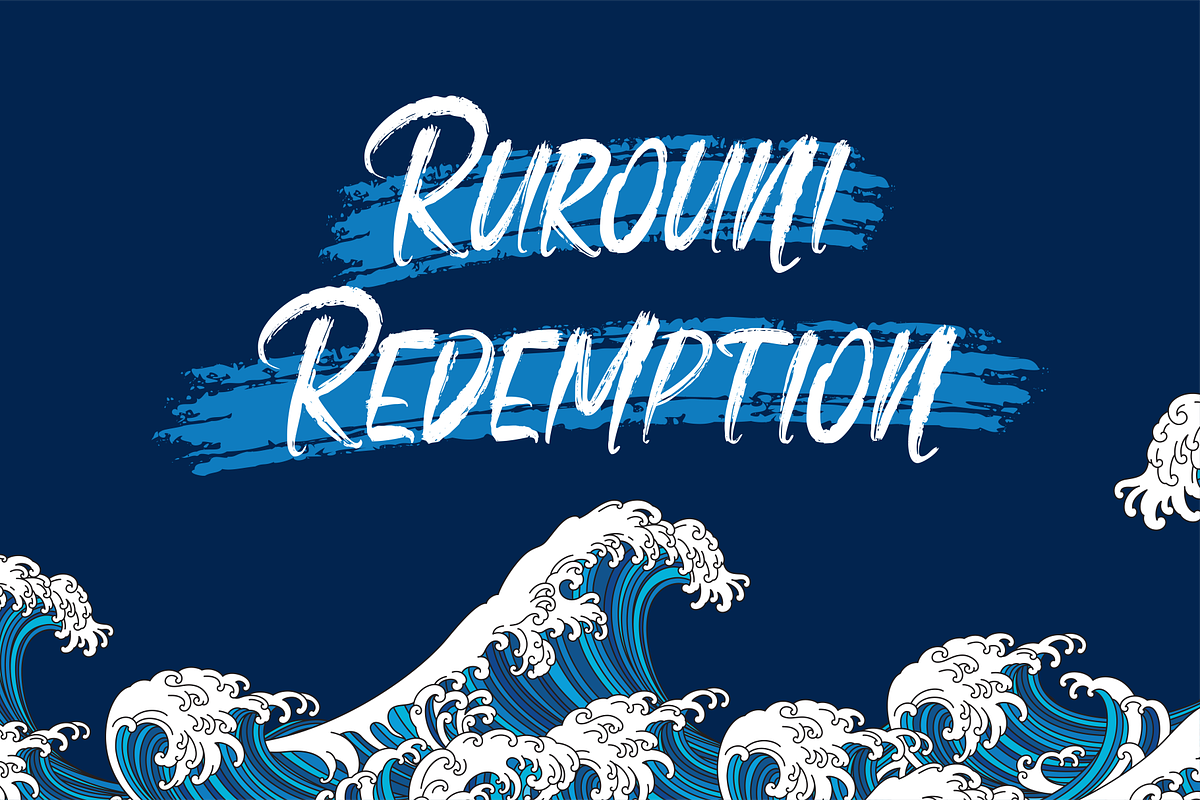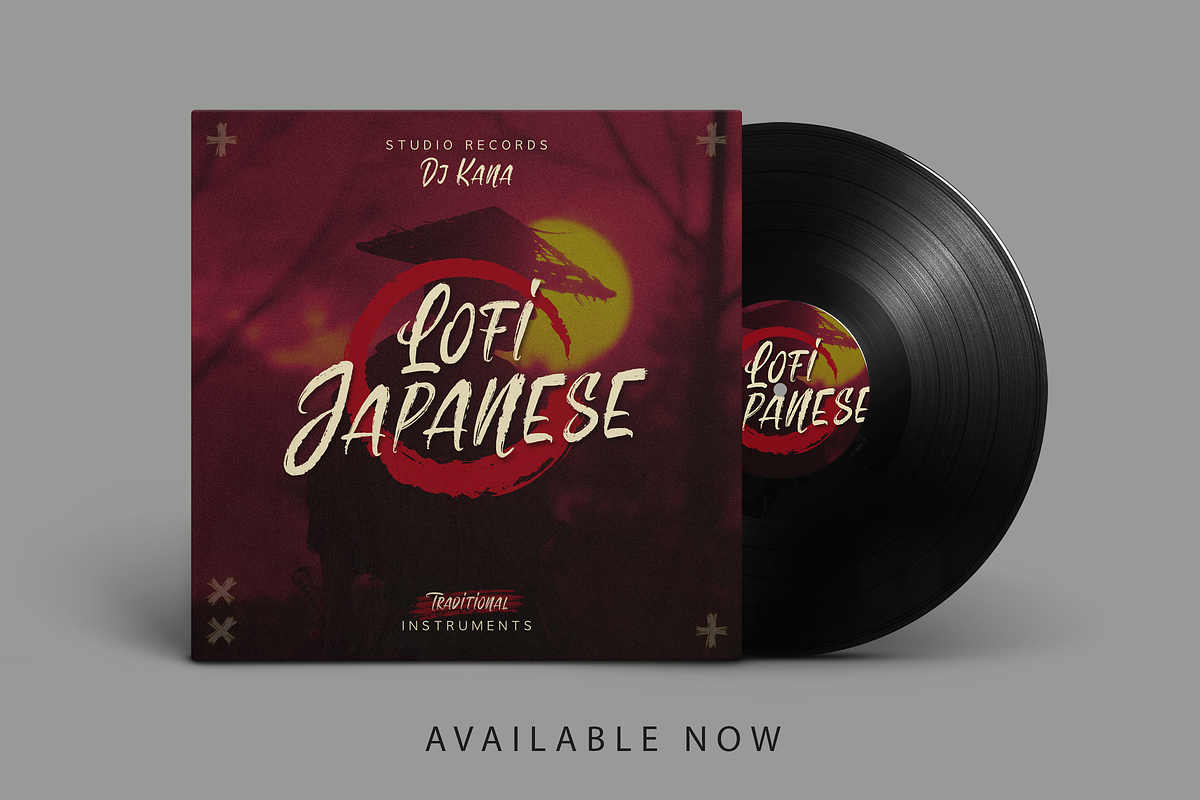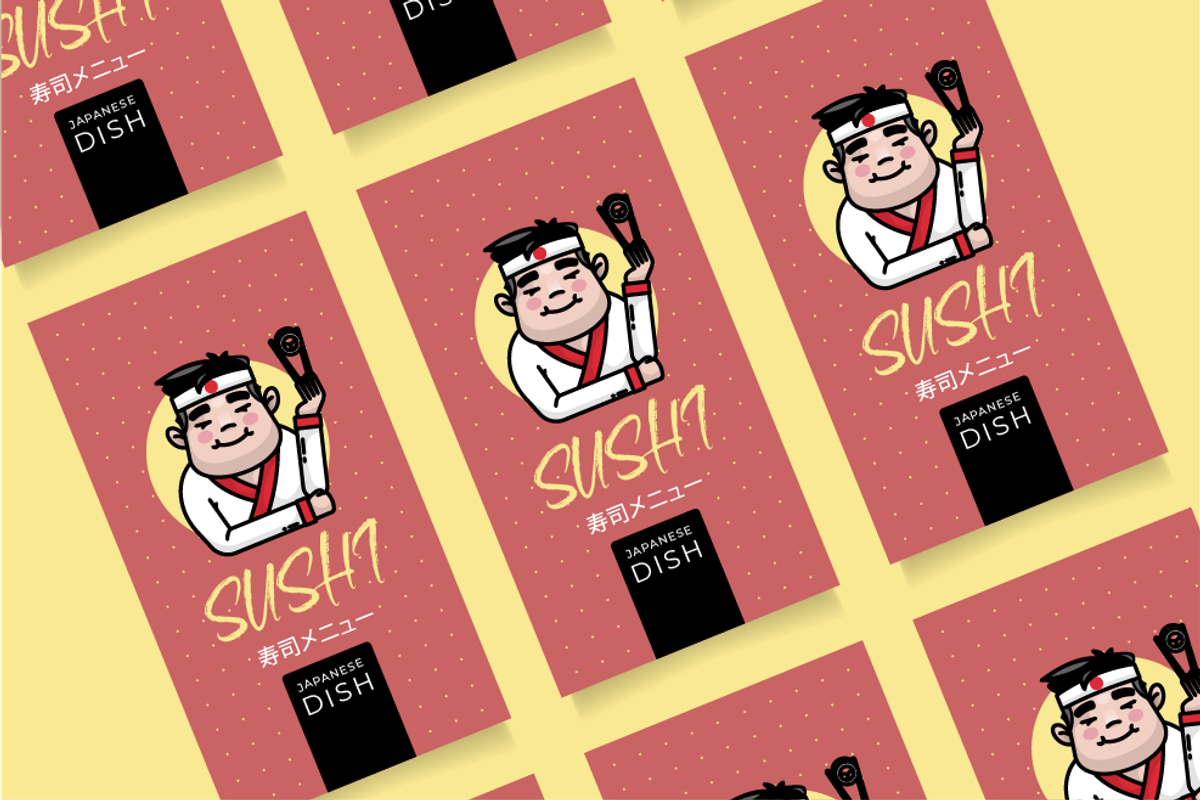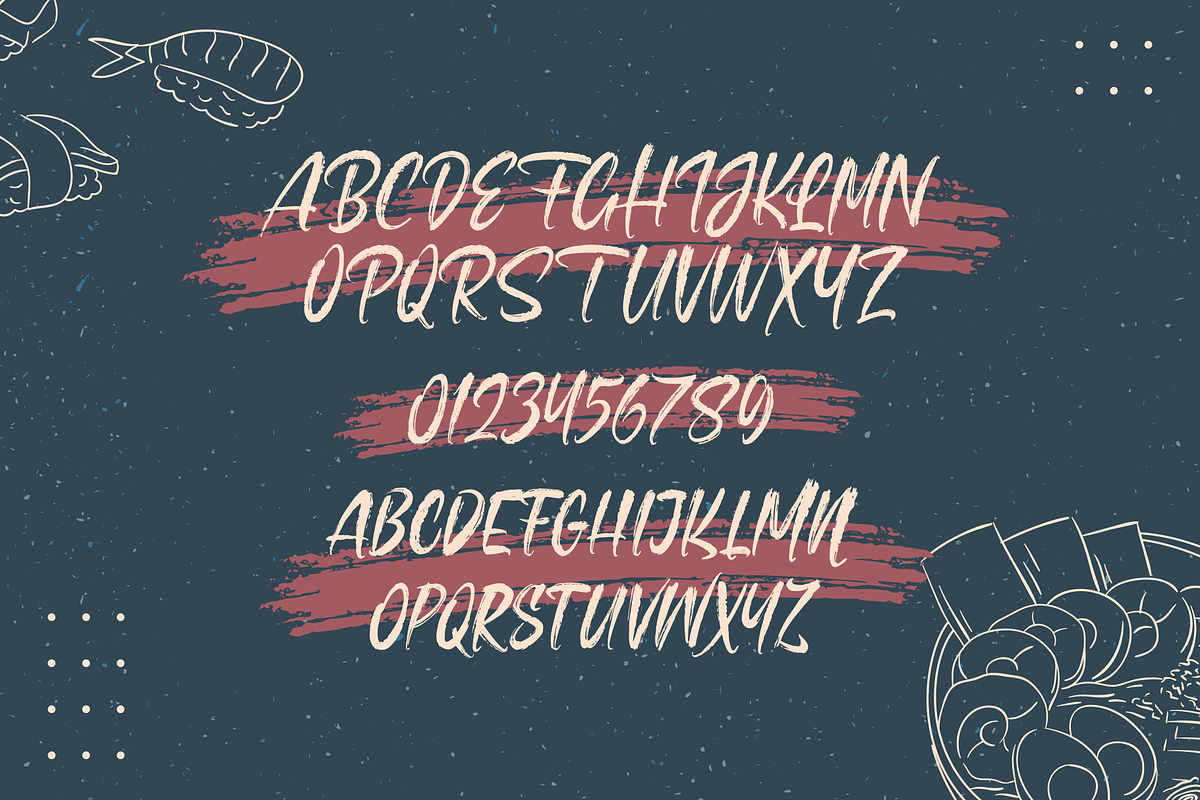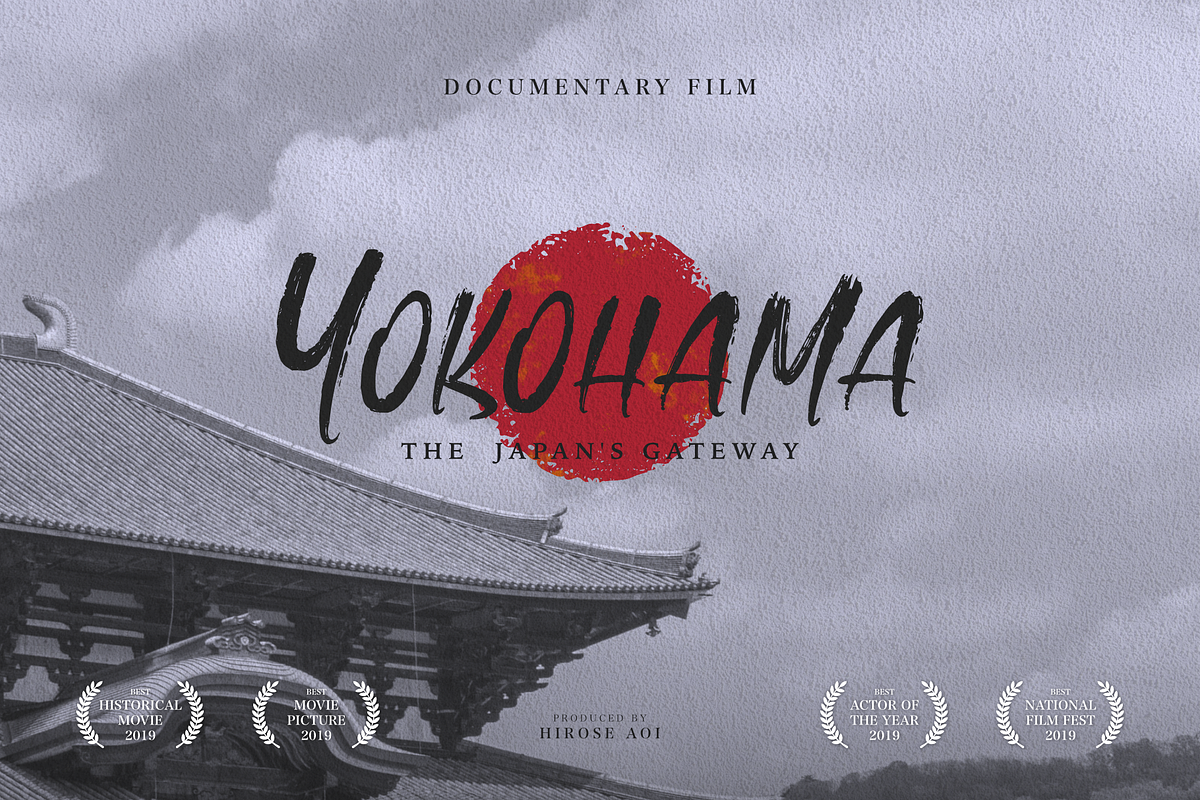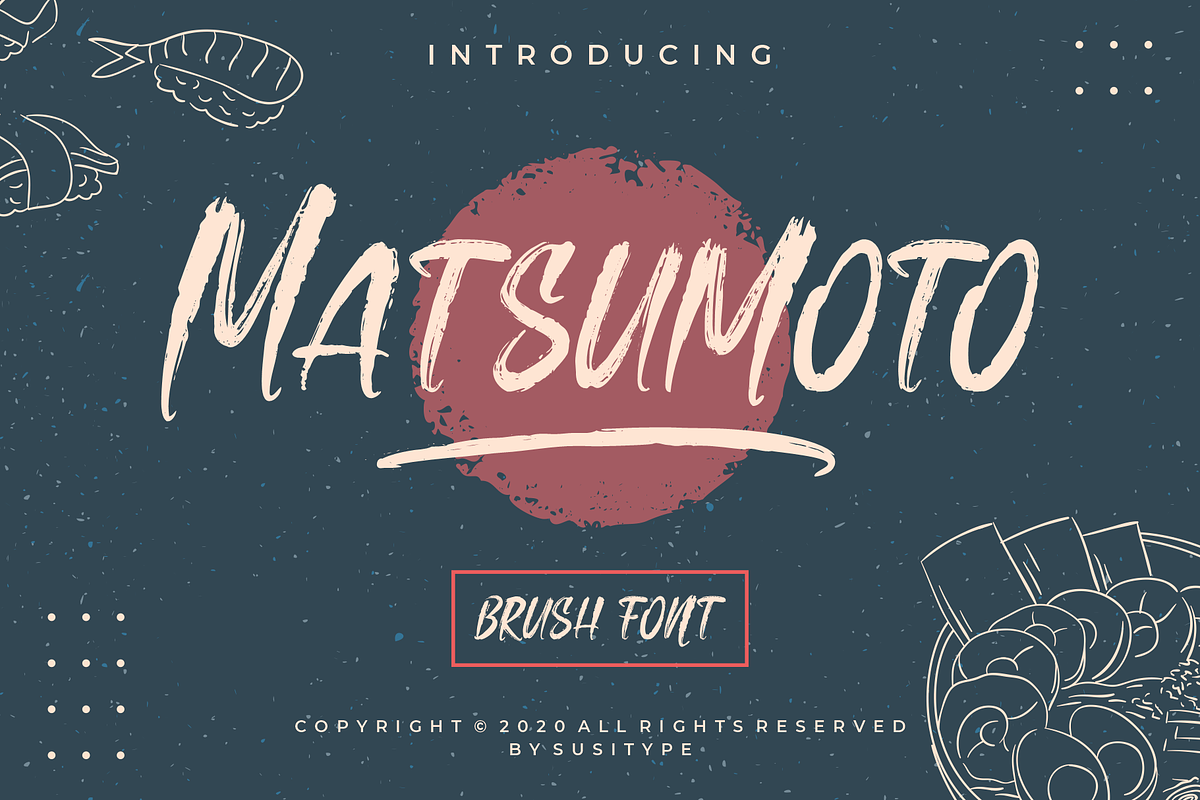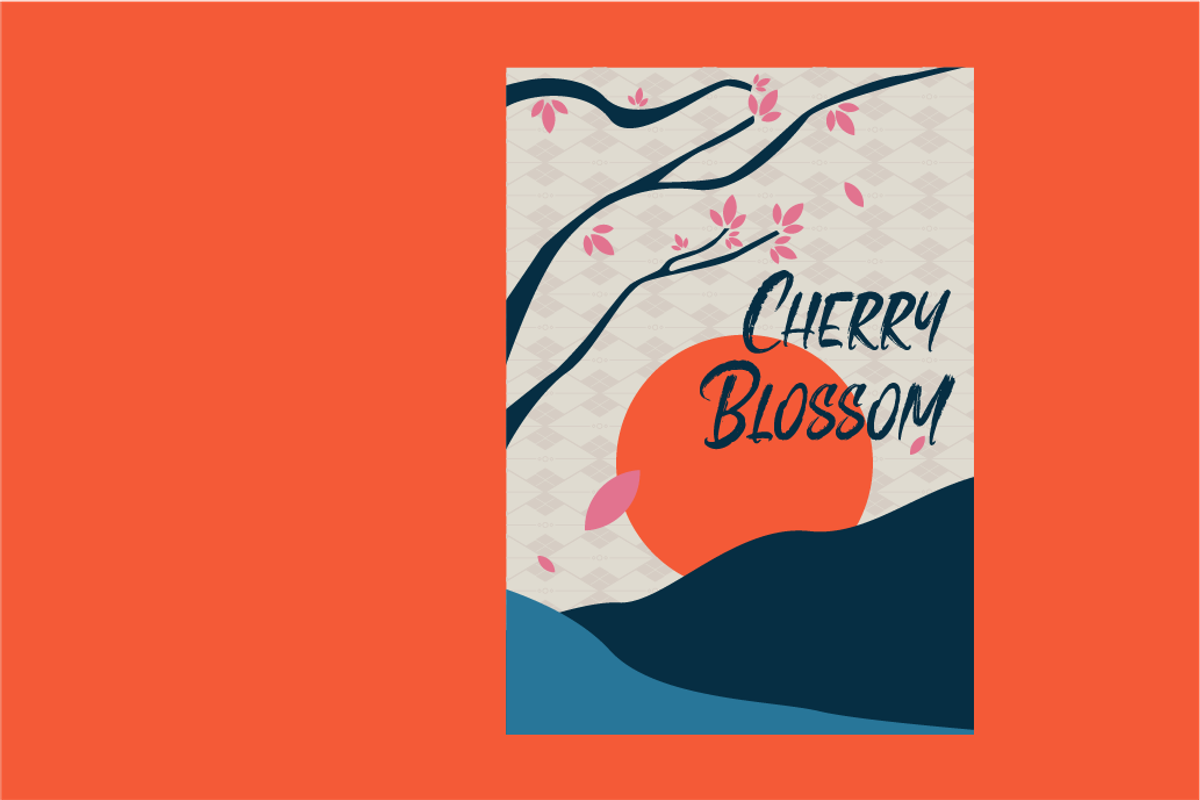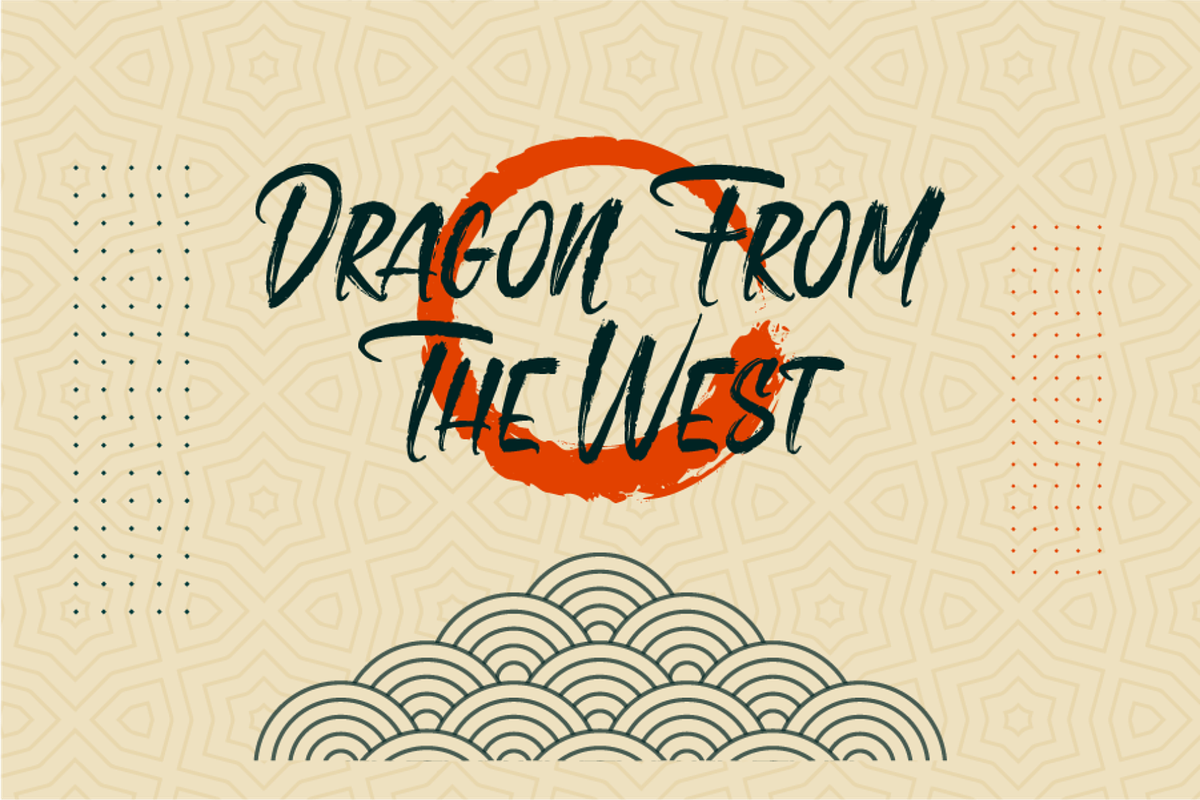
Matsumoto
Introducing Matsumoto, a handwritten dry brush font. With all the raw dry brush effect / texture. This font inspired the japanase kind of vibes. It will very suitable for your any projects that . You could access the brush swoosh by check the 0-9 alternate character. Thank you